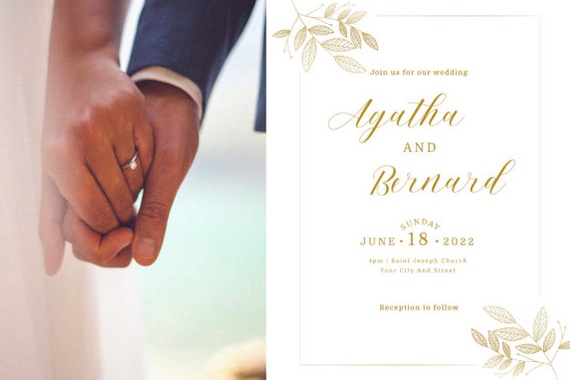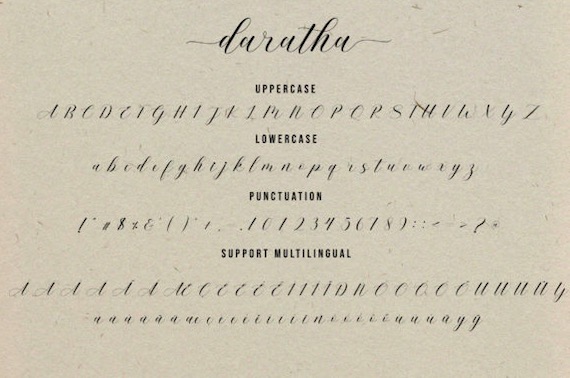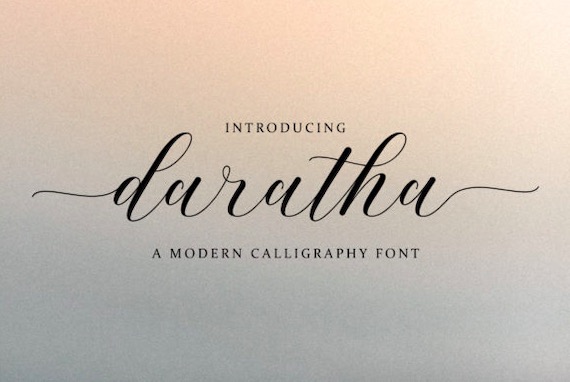
Daratha Font
Daratha is a stylish and gorgeous handwritten script font that was created and shared by JDStudio. This script font is very perfect for any classy design project, for example, logos, t-shirt printing, creative products, and more. This script font is PUA encoded which means you can access all of the glyphs and swashes with ease.
Daratha Calligraphy Script Font